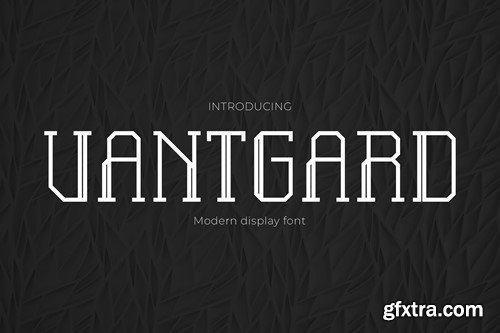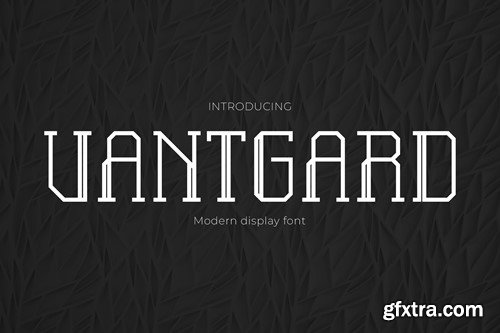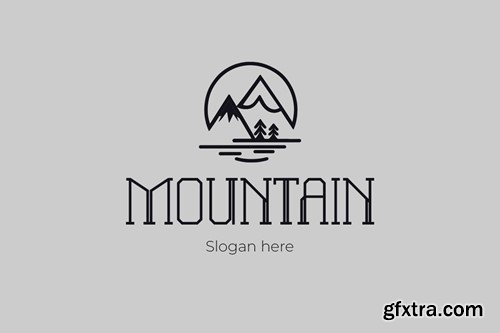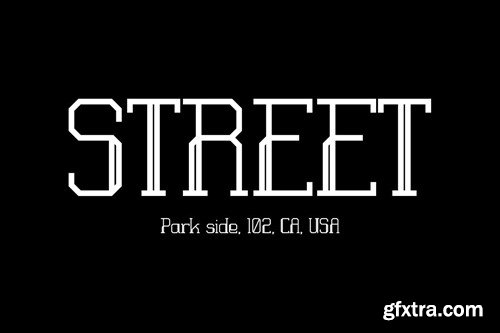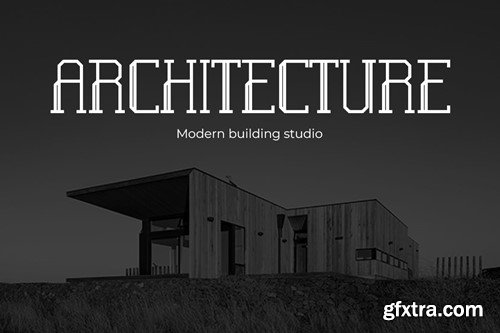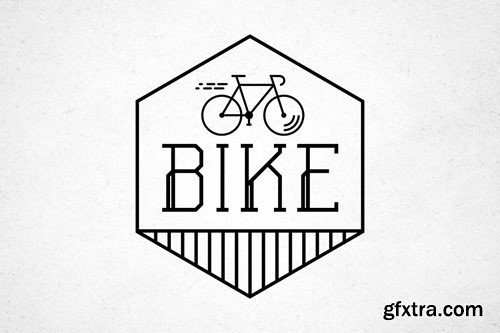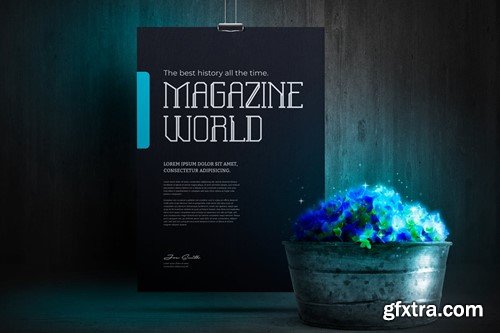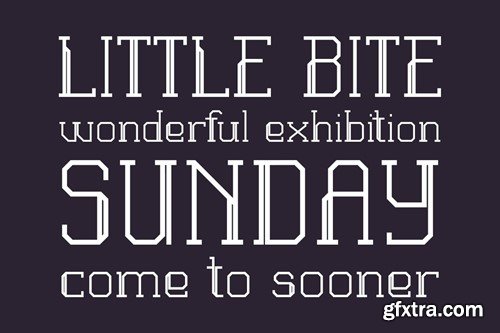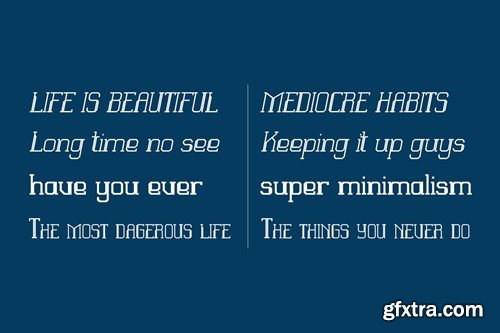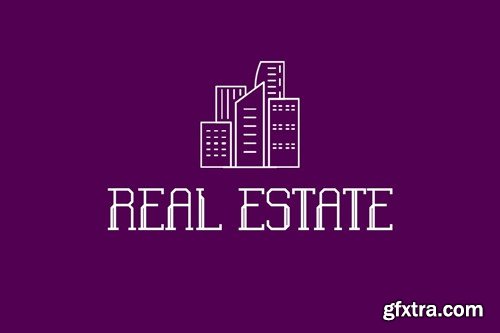
Vanguard - 革新手现代字体 MHY3AT7
Vantgard is the epitome of modern sophistication, where avant-garde aesthetics take the lead in design excellence. Tailored for branding, packaging, logos, movie posters, banners, and posters, Vantgard introduces a new standard of elegance to your projects. Each letter is a testament to contemporary design, blending minimalist finesse with sleek futurism. Whether you're crafting a brand identity, enhancing packaging, or creating captivating posters, Vantgard transforms your designs into timeless pieces of visual art. Immerse yourself in the avant-garde allure of Vantgard, where every curve and line reflects a commitment to modern style. Set your designs apart and redefine elegance with Vantgard, a font that raises the bar for sophisticated, contemporary aesthetics. **What’s Included: **